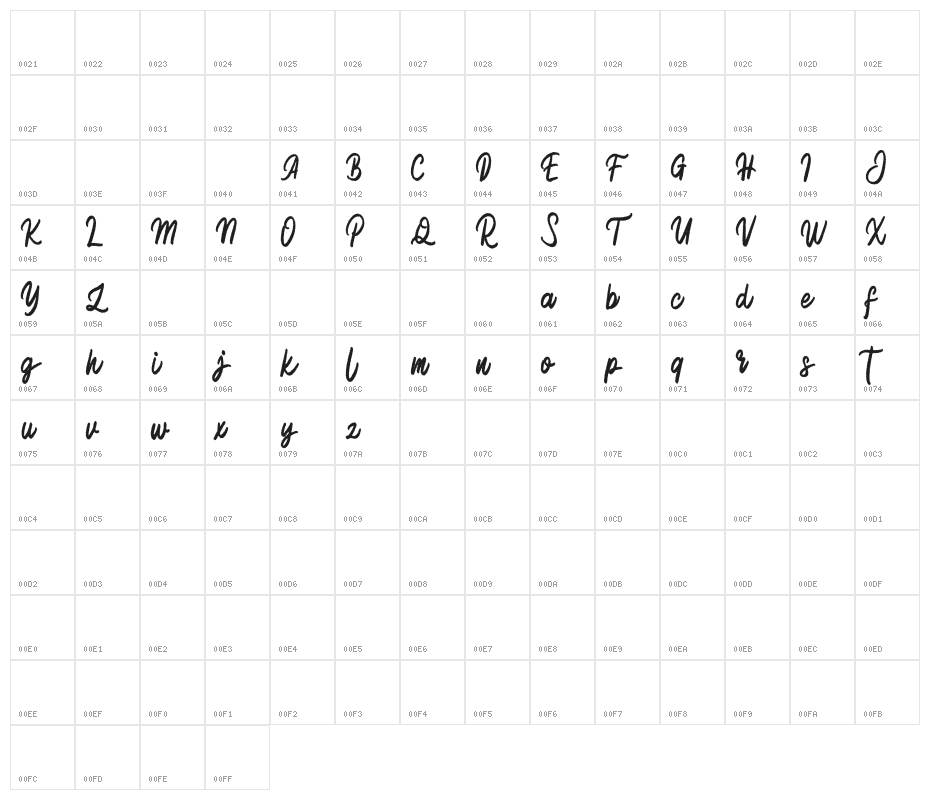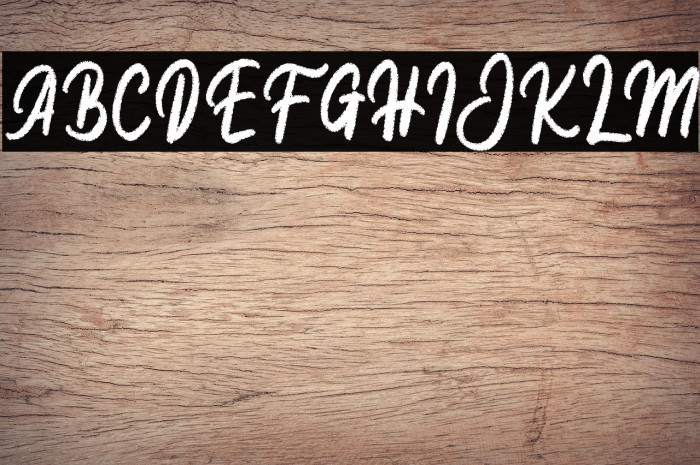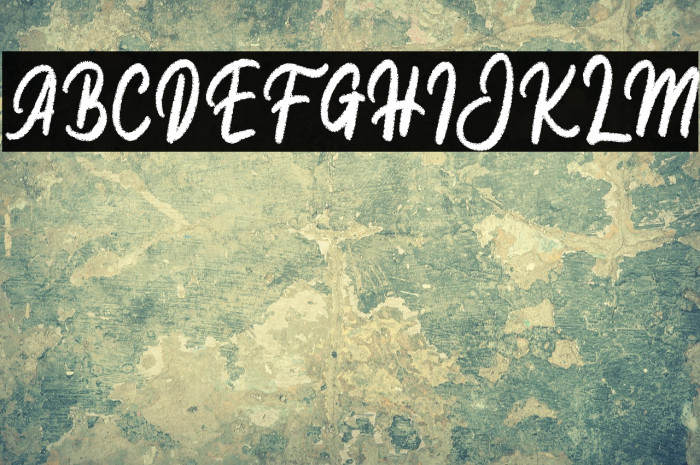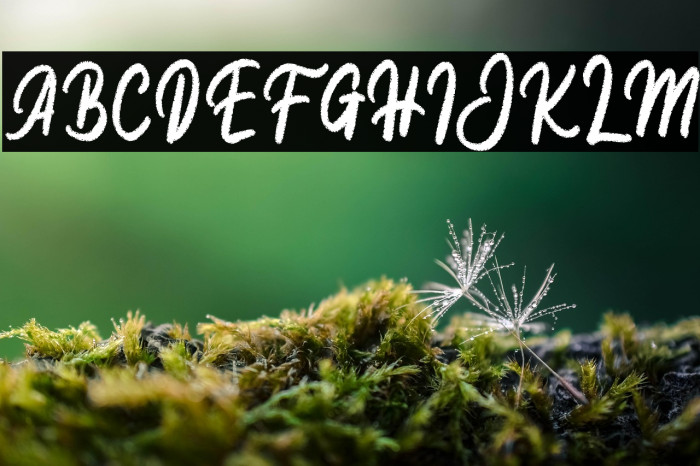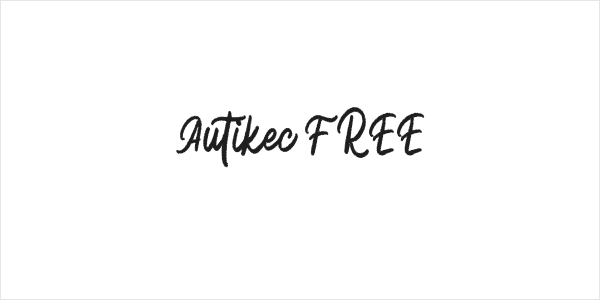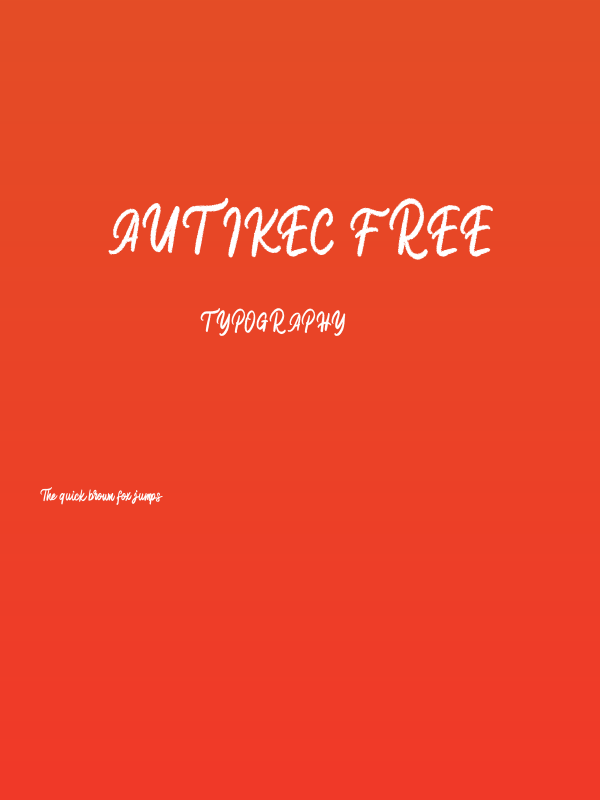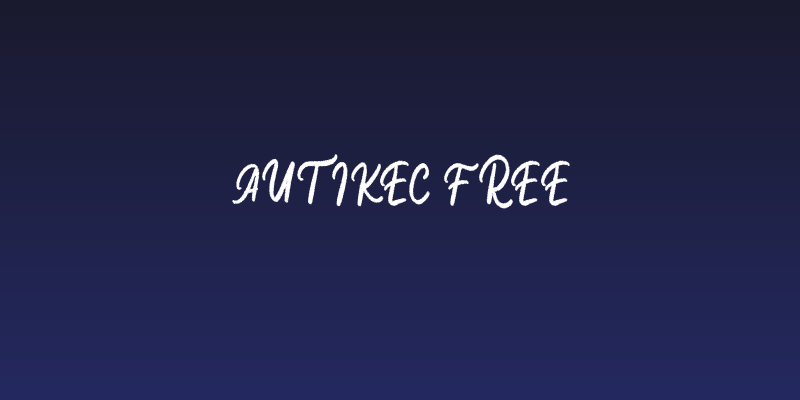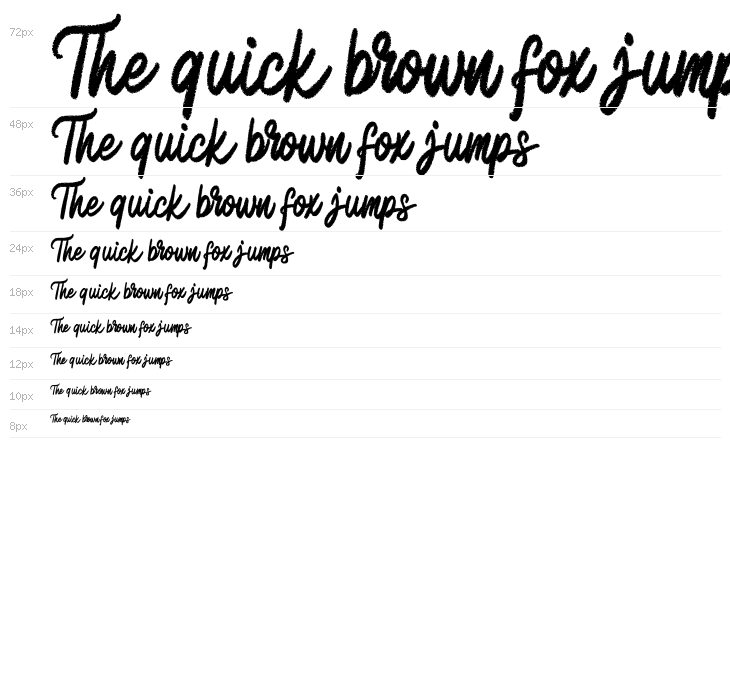
Autikec FREE Font
Autikec FREE Description
This font features a lively and dynamic script style, characterized by its fluid, cursive letterforms. The strokes are bold and confident, with a consistent thickness that gives the text a strong presence. The uppercase letters are elegant and slightly slanted, while the lowercase letters maintain a playful and informal appearance. The overall design is reminiscent of handwritten calligraphy, with smooth curves and loops that add a touch of sophistication. This font is versatile and can be used to convey a sense of creativity and personal touch.